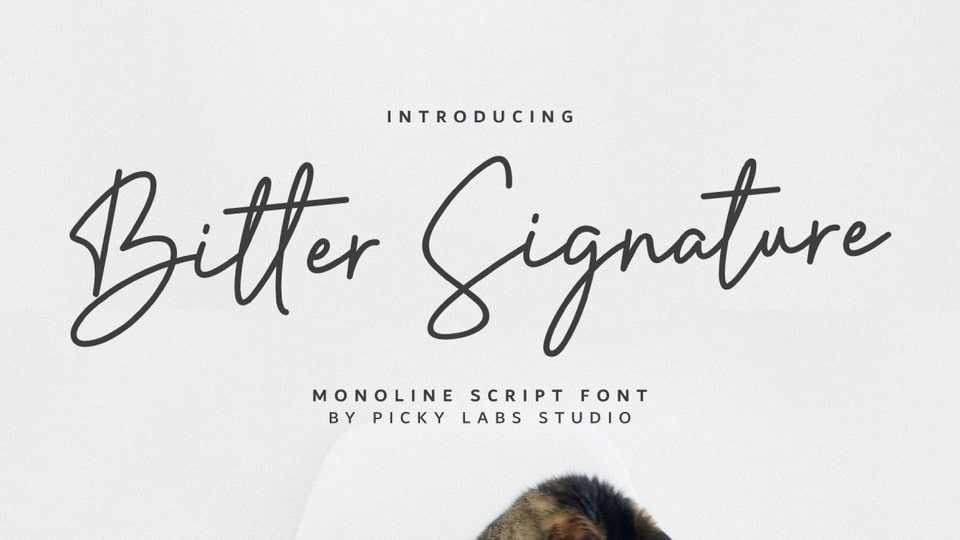
Download Bitter Signature font, a signature monoline typeface with smooth lines and a casual style. It has a natural modern look that will give your text a personal, custom-made feel.
Designer: Picky Labs